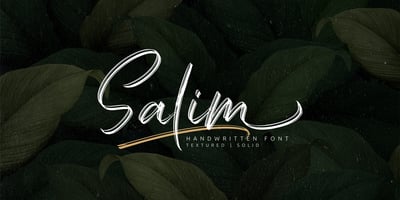
Salim
Salim font
Salim Font Family was designed by Ibnu Utomo and published by Omotu. Salim contains 2 styles and family package options. Salim is a handwritten brush font with 2 styles, regular (brush texture) and solid. Salim is perfect for branding, logotype, apparel, T-shirt, Hoodie, product packaging, quotes, flyer, poster. Comes with Uppercase and lowercase characters, Supports international languages, Numerals, punctuations, ligatures, stylistic alternates, and stylistic sets. Accessible in the Adobe Illustrator Glyphs panel, or under Stylistic Alternates in the Adobe Photoshop OpenType menu, Adobe InDesign, Corel Draw, even work on Microsoft Word. Thanks for looking, and I hope you enjoy it! Please don’t hesitate to drop me a message if you have any issues or queries.